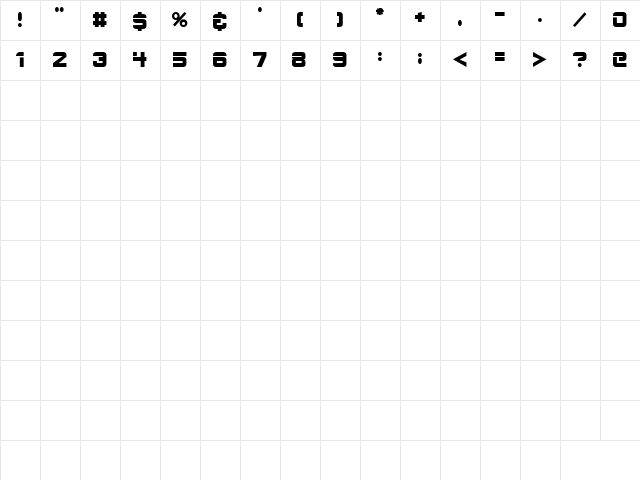
Star Trek Hebrew Regular
Design Context for Star Trek Hebrew Typeface
Star Trek Hebrew offers clean, dependable letterforms without strong stylistic allegiance, making it a practical choice for designers who need flexibility.
Pro Tip: Use Star Trek Hebrew in both headline and body roles to test its range before committing to a single application.